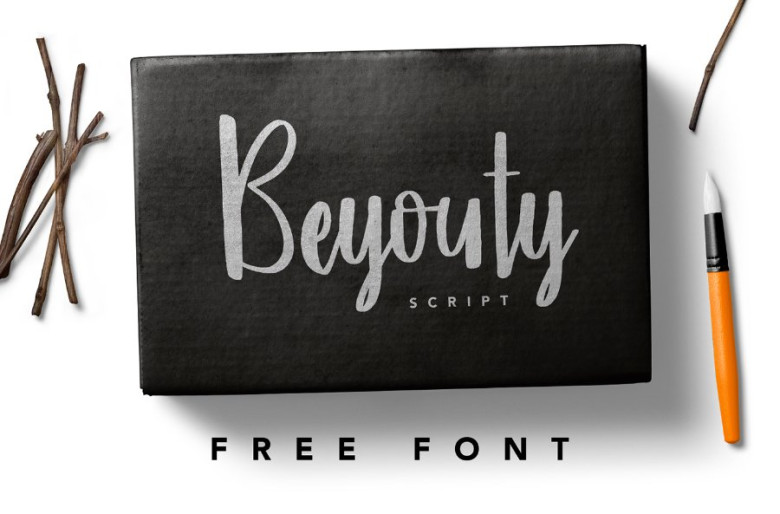
Beyouty Script Font
Thanks for checking out Beyouty Script Font! Beyouty Script designed and shared by Justfontyou. Whenever you need strong impression for your design, Beyouty is there for you..Beyouty Script font perfect for wedding, event, invitation, escort card, table number, header menus, display, logos, slider blog, custom address, stamps, packaging, greeting card, etc.